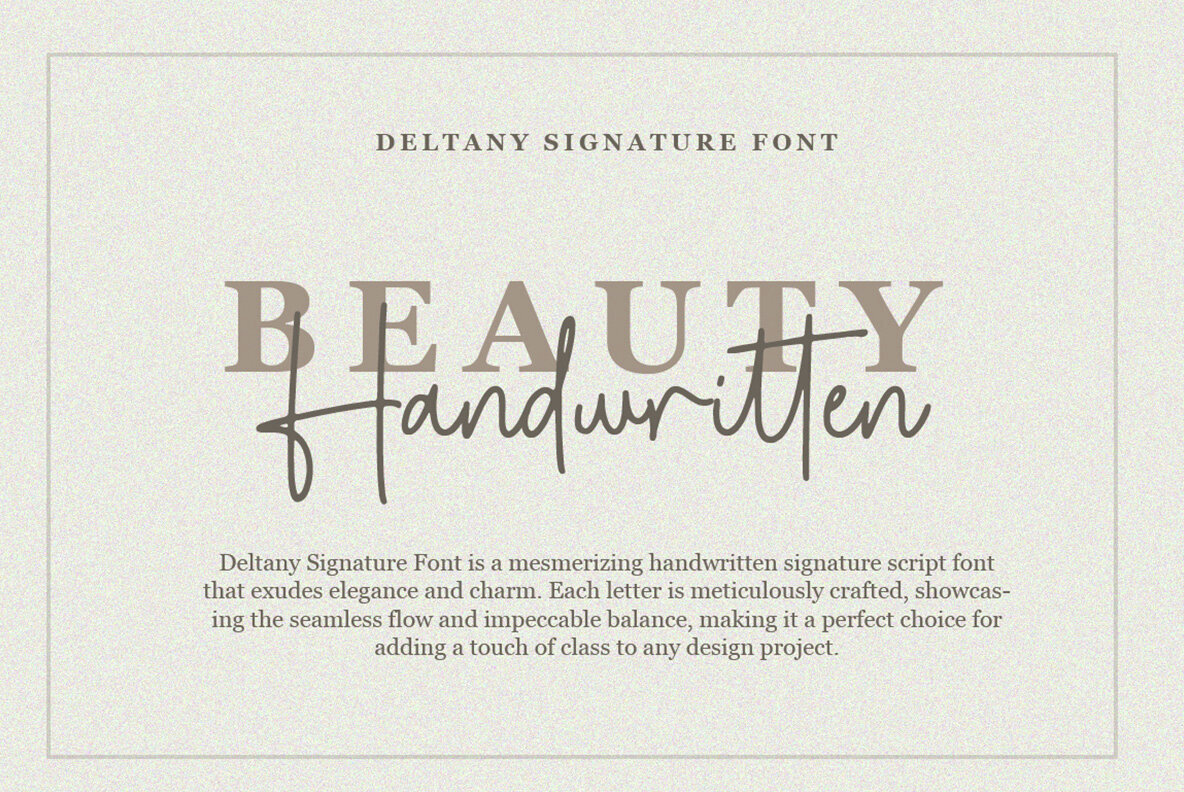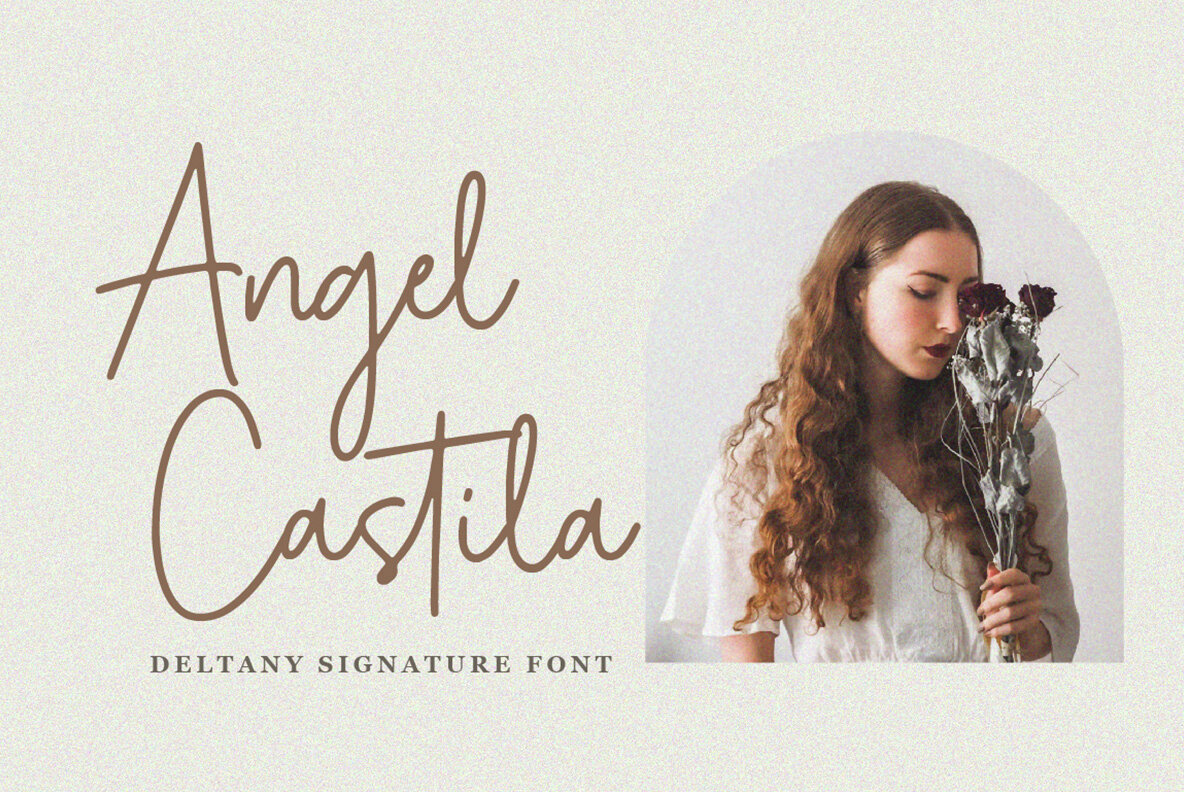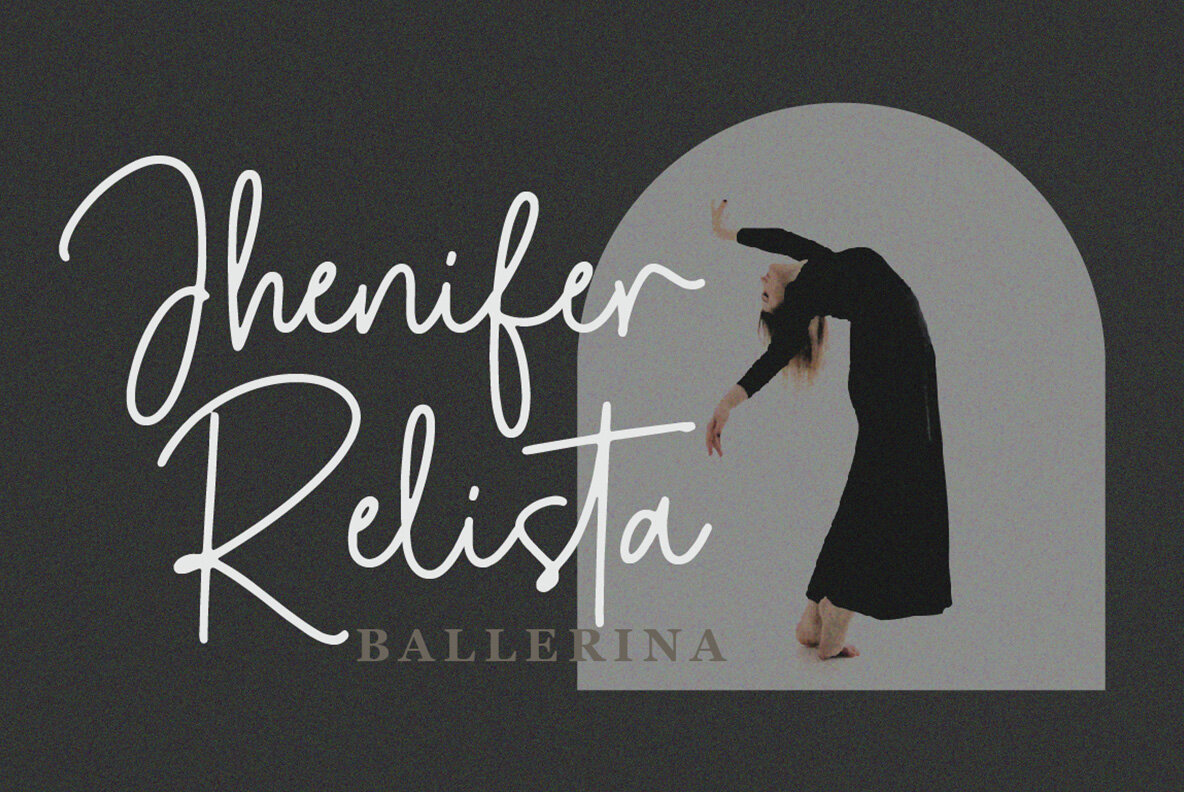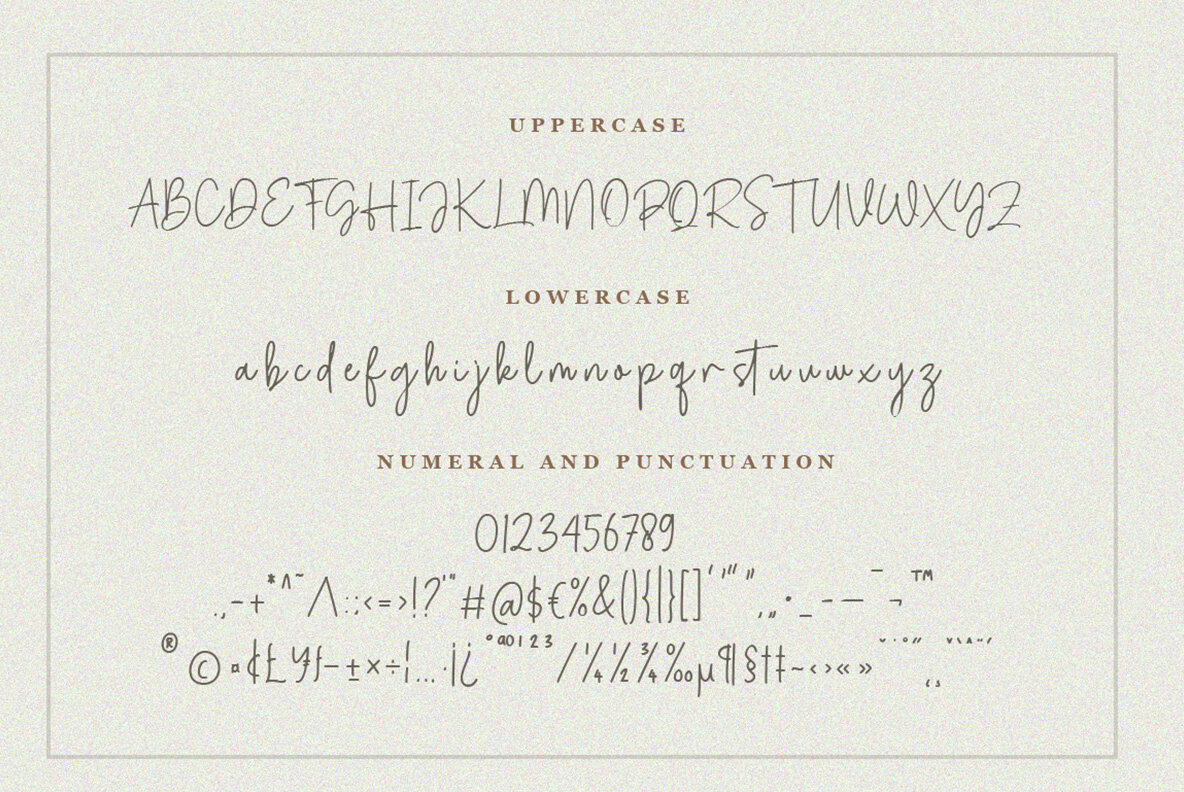
Deltany Signature Font
Deltany Signature
This handwritten, script font boasts an expressive and flowing style that captures the spontaneity and elegance of hand-drawn brush strokes. With its unique casual flair and dynamic character variation, it conveys a personal and natural look that's well-suited for creative projects that require a touch of human warmth and approachability. The organic, relaxed nature of this typeface makes it ideal for informal, contemporary designs where a touch of playfulness and energy is desired.